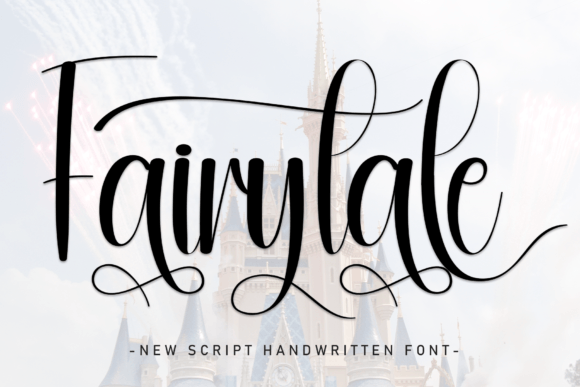
A Touch of Whimsy in Every Line: The Fairytale Font
Have you ever sat down with a blank sheet of paper and a pen, only to find yourself lost in a world of imagination? The blank page can be intimidating, but it’s also an invitation to create something truly magical. For designers and writers, this blank canvas is where the magic begins. And what better way to bring that magic to life than with the perfect font?
Meet the Fairytale Font, a sweet and friendly handwritten font that’s perfect for adding a touch of whimsy to your designs. Whether you’re writing wedding invitations, creating birthday cards, or designing a children’s book, this font is sure to bring a smile to your readers’ faces. Its fresh and casual vibe makes it an invaluable tool for designers looking to add a personal touch to their work.
Fairytale Font Key Features
- Font Family: Fairytale Font is a unique, hand-drawn font family with a whimsical and elegant design.
- Character Set: The font family includes a wide range of characters, including uppercase and lowercase letters, numbers, punctuation, and special characters.
- Unique Characteristics: Features intricate details, flourishes, and ornaments that add a touch of magic to any design, making it perfect for fairy tales, children’s books, and fantasy-themed projects.
Designer Review: Fairytale Font
First impressions count, and the Fairytale Font ✨ definitely delivers on its whimsical promise. The intricate details, swashes, and flourishes create a sense of enchantment that’s perfect for titles, headers, and other design elements where you want to evoke a sense of fantasy and romance.
One of the standout features of this font is its flexibility ✨. It’s available in a range of styles, from formal to casual, making it suitable for a wide range of design applications, from children’s books to wedding invitations.
- ✨ Whimsical, fairy-tale feel that’s perfect for fantasy and romance-themed designs
- ✨ Flexibility in style options makes it suitable for various design applications
- ✨ Intricate details and flourishes add visual interest
- ⚠️ Limited font size flexibility, as it can become difficult to read at very large or very small sizes
- ⚠️ May not be suitable for body text, due to its ornate and decorative nature
Overall, the Fairytale Font is a delightful addition to any designer’s toolkit ✨. While it may have some limitations, its unique charm and versatility make it a great choice for designers looking to add a touch of magic to their work.
Use the Fairytale font to create whimsical and magical designs, such as invitations, banners, and social media graphics.
Use the Fairytale font to create custom illustrations, logos, and typography-based designs.
Use the Fairytale font to create engaging presentations, reports, and documents with a touch of magic.
For optimal results, use the Fairytale font in combination with other whimsical elements, such as illustrations and graphics.
- Children’s book covers and illustrations
- Wedding invitations and decorations
- Social media graphics and advertisements
- Custom typography and logos
Alternatives to Fairytale Font for Designers
Playfair Display is a luxurious and elegant serif font ideal for high-end branding, invitations, and luxury packaging. Its refined look and feel make it a suitable alternative to Fairytale Font for projects requiring sophistication and sophistication. Unlike Fairytale Font, which has a whimsical feel, Playfair Display is more understated, making it a better choice for projects that demand a more subtle approach.